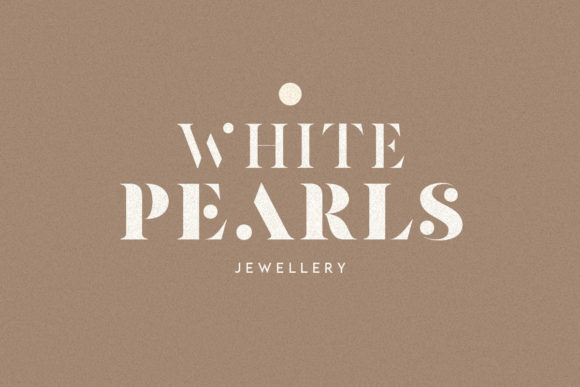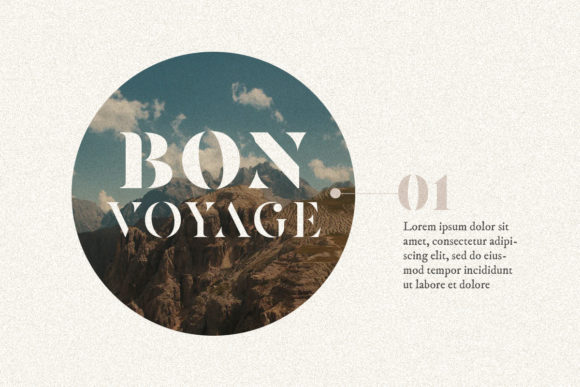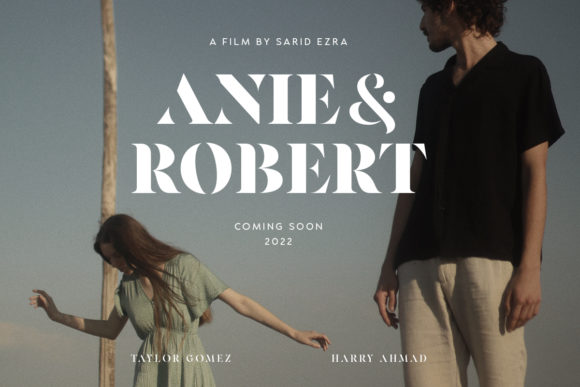
Introduction to Pearlone Font
Pearlone is a stylish and modern stencil serif that will make your projects more elegant and appealing.
You can use this font for any purposes, such as a branding logo, poster, or even editorial This font also supports multi language.
Pearlone Font offers exceptional quality and versatility, making it a valuable addition to your design toolkit. Whether you’re creating for personal projects or commercial use, Pearlone Font delivers professional results.